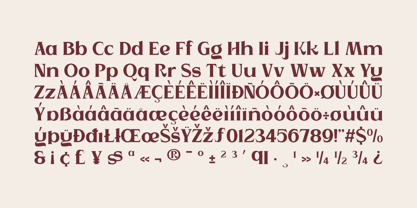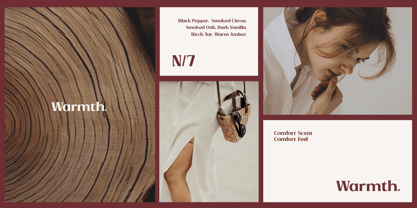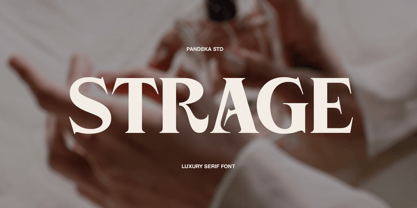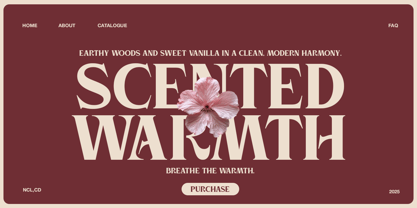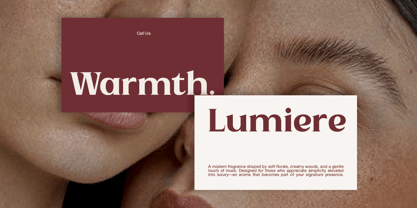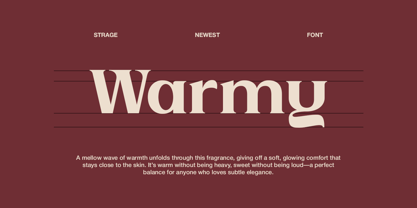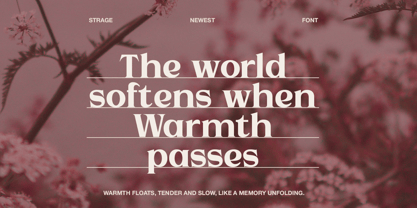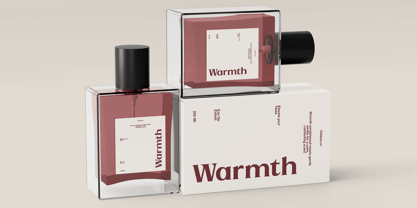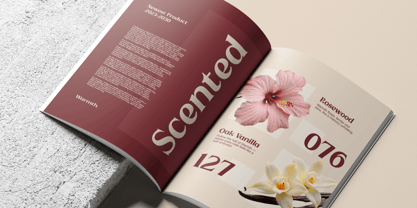
Strage
Die Schriftfamilie Strage wurde von Sagara Nararya entworfen und von Pandeka Studio veröffentlicht. Strage enthält 2 Stile und Familienpaketoptionen. Mehr über diese Familie
Strage is a modern luxury serif font crafted with elegant contrast, graceful curves, and a refined sense of sophistication. Designed for premium branding and high-end visual identity, Strage brings a polished, contemporary feel to any layout—perfect for beauty, fashion, editorial, and upscale product design.
This font includes 2 styles: Regular and Outline, allowing designers to pair solid elegance with airy decorative outlines for versatile typographic expression. Use them together to build striking headlines, stylish logo systems, magazine layouts, perfume branding, packaging design, and premium advertising.
With its smooth proportions and subtly expressive details, Strage is ideal for luxury branding, editorial features, cosmetic packaging, social media aesthetic, photography branding, and modern lifestyle visuals. Every letterform is designed to deliver a clean, confident, and timelessly elegant look.
• 2 Style: Regular and Outline
• Full Character Set: Uppercase, lowercase, numbers, symbols, and punctuation
Designer: Sagara Nararya